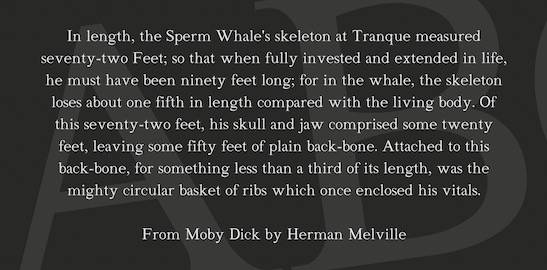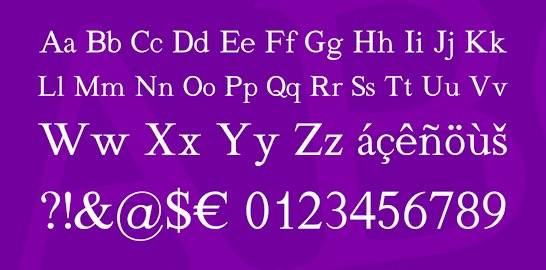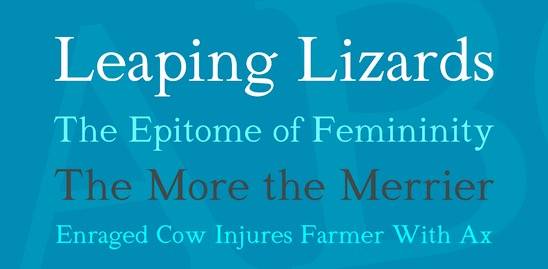
Quivira is a dark, clean serif font which reminds you a little of Times New Roman. This Serif font has a large height and short extenders for better screen use.
Quivira is a wedge serif font that is sure to stand out! Along with a little bit retro and a bit modern, Quivira is so great for web design, editorial, logos,…The unique sharp serifs mixed with thin strokes give off a bold mid-century architectural vibe.
Quivira Font